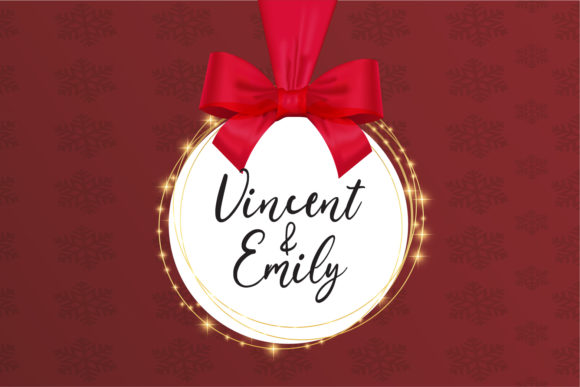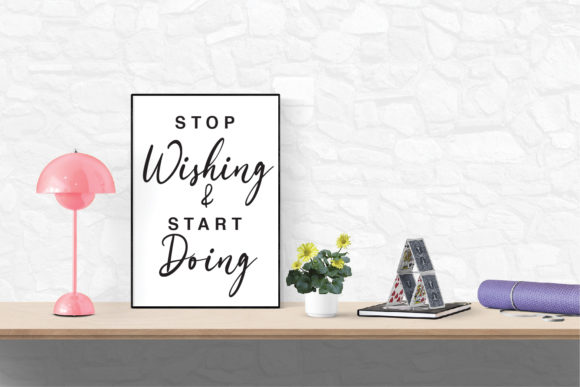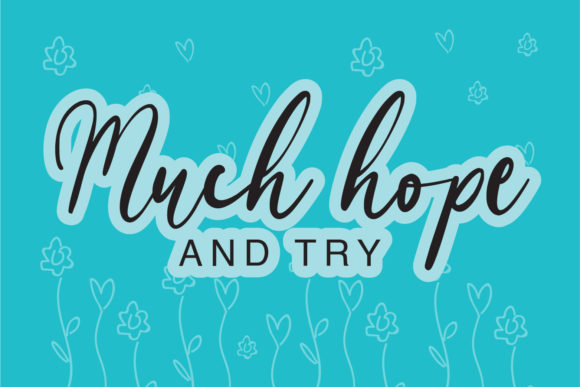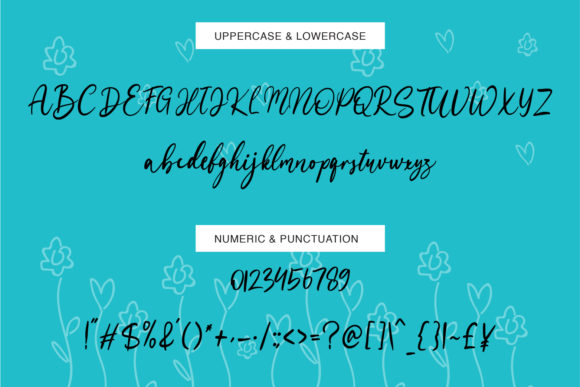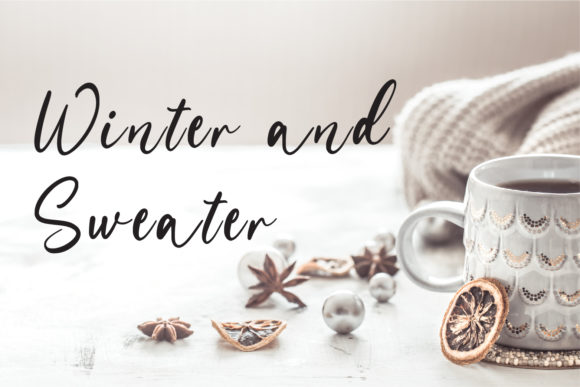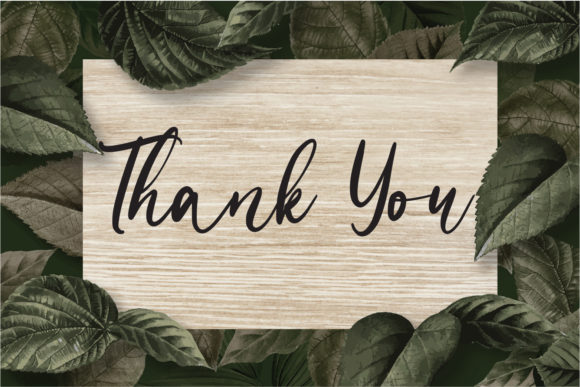
Introduction to Mondeste Font
Remember the excitement of finding that perfect design element to elevate your creative project? The thrill of discovering a font that captures the essence of your vision and brings it to life? For designers, this moment is priceless. It’s the moment when everything falls into place, and your design shines with a level of sophistication and elegance that leaves a lasting impression.
One such design treasure is the Mondeste Font, a stunning script font that has captured the hearts of designers worldwide. With its sweet and curly accents, this exquisite font masterfully blends classic calligraphic influences with a fresh and contemporary feel.
Key Features of Mondeste Font
- Mondeste Font comes in a single weight, perfect for achieving a consistent look across your design resource.
- Resolution-independent, ensuring crisp and clear text at any size, from small captions to large headings.
- Designed to be highly legible, making it an excellent choice for body text in various creative projects.
Honest Review: Mondeste Font
I recently had the chance to work with the Mondeste Font, and I must say it’s a game-changer for my creative projects. The high quality and clean design make it perfect for anything from logos to web headers.
- ✨ The transparent background option gives me endless possibilities for customization.
- ✨ The font’s versatility makes it suitable for a wide range of creative projects.
However, I did encounter some limitations during my use of the Mondeste Font. For example:
- ⚠️ The font doesn’t support some of the more exotic languages, which can be a problem for projects that require multilingual support.
- ⚠️ The font’s weight options are somewhat limited, which can make it difficult to achieve the exact look I want.
Overall, I’m thoroughly impressed with the Mondeste Font. Its high quality and versatility make it a valuable addition to any designer’s toolkit. While it may have some limitations, I believe the benefits far outweigh the drawbacks.
Tips for Getting the Most Out of Mondeste Font
For a transparent background, use the font with a white or light-colored background. Experiment with different font sizes and styles to add visual interest to your design.
The Mondeste Font is ideal for creative projects such as logo design, infographics, and social media graphics. Its high-quality design makes it a versatile resource for designers and non-designers alike.